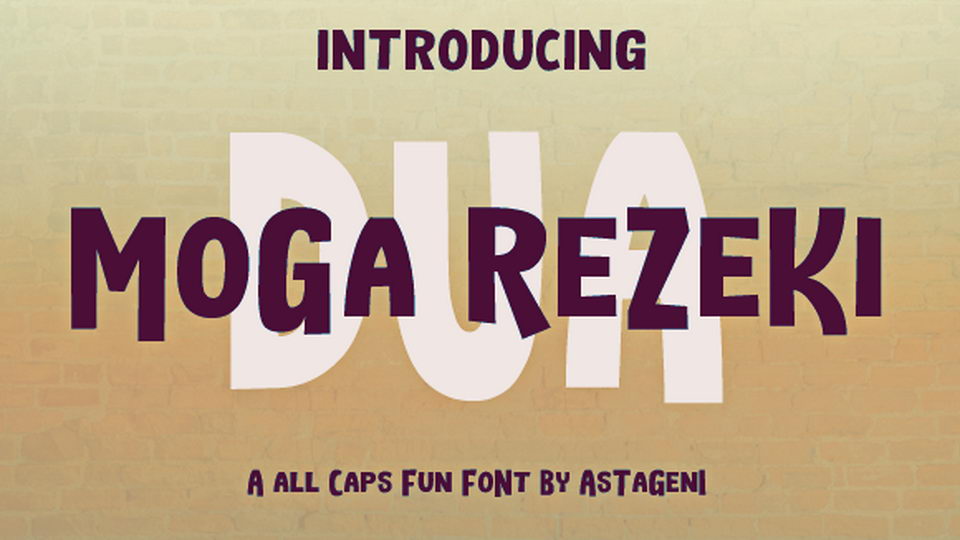
Feb 11, 2025DisplayMoga Rezeki Dua Font Moga Rezeki Dua is a fun and playful all caps display typeface.Moga Rezeki Dua font fits great for posters, kids products, games and books, crafts and more. Font DetailsDesigned by: Nur SolikhWebsiteLicense: Free for commercial use Download Moga Rezeki Dua FontFile size: 18.77 KBCreated: February 16, 2025Updated: February 16, 2025 Download Explore similar fonts Chunky Bouncy Font Brady Bunch Remastered Font Snack Block Font Action Jackson Font Zombie House Font Freaky Ghost Font # Cartoon# Playful More fonts by Nur SolikhVervelle ScriptMilies Font DuoHello Anissta Sans Font